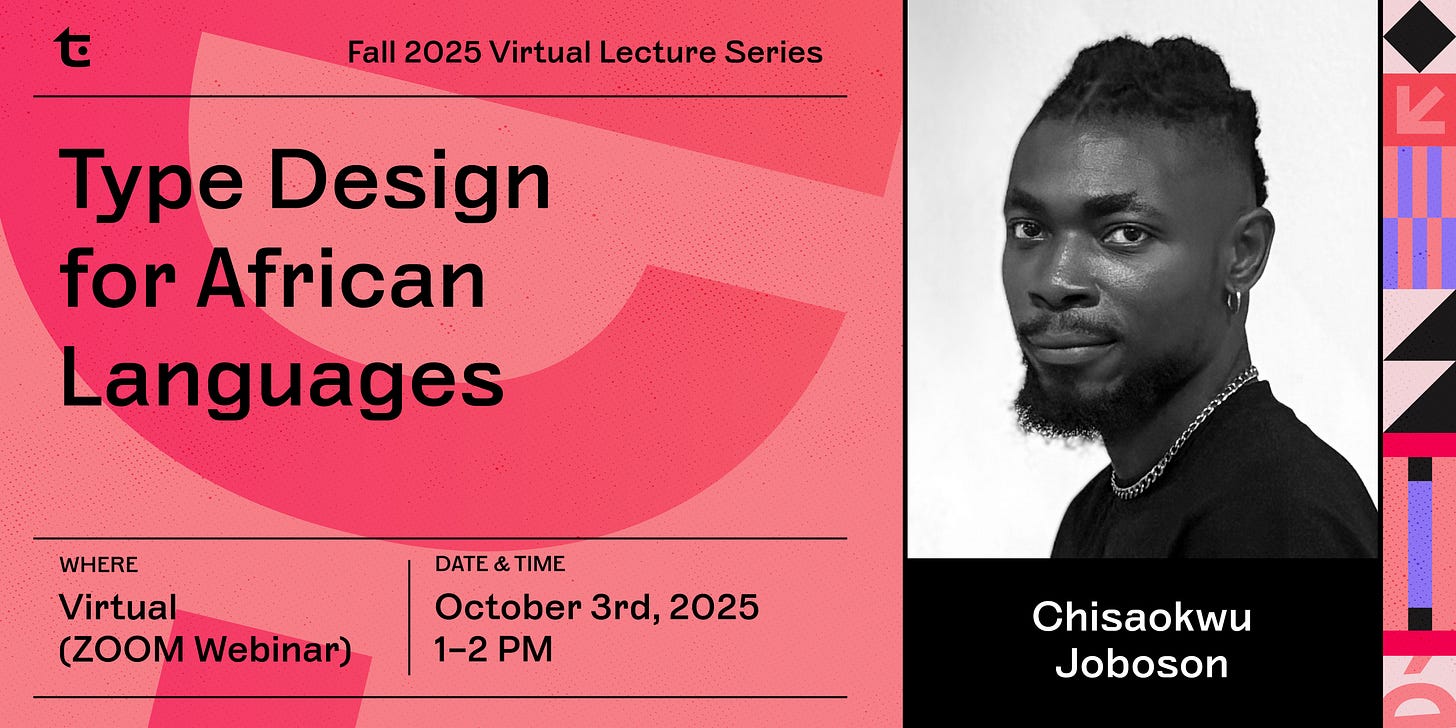
Type Design for African Languages with Chisaokwu Joboson
How can type support cultural identity, linguistic nuance, and visual expression across Africa?
TE Lecture Series: Type Design for African Languages with Chisaokwu Joboson
In this session, we’ll speak with Chisaokwu Joboson, a Nigerian type and brand designer, about Type Design for African Languages and his work with Ụdị Foundry. We’ll explore the cultural, linguistic, and design considerations involved in creating type that elevates African stories and reflects the continent’s languages, character sets, visual traditions, and cultures. Chisaokwu will share his journey in type design, how his work challenges industry expectations, and his approach to authenticity, self-determination, and cultural representation. We’ll also discuss questions such as: How can designers expand access and equity in type design for African languages? What gaps exist in traditional typography education and resources? How can type support cultural identity, linguistic nuance, and visual expression across Africa?